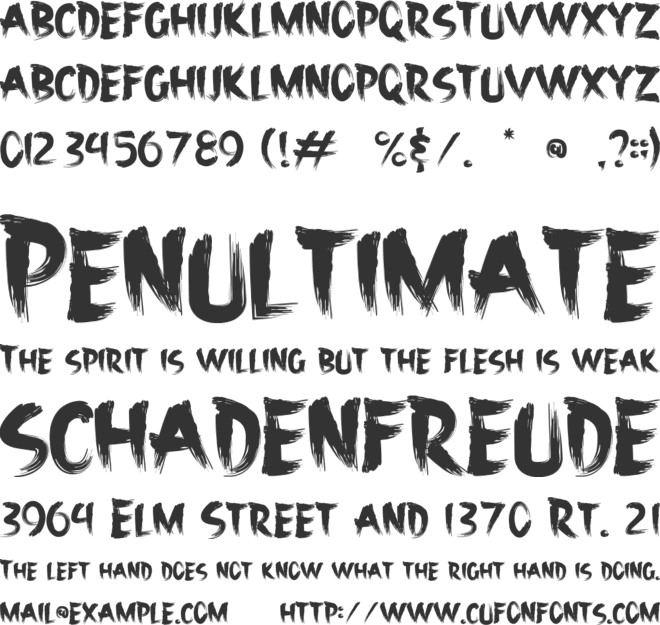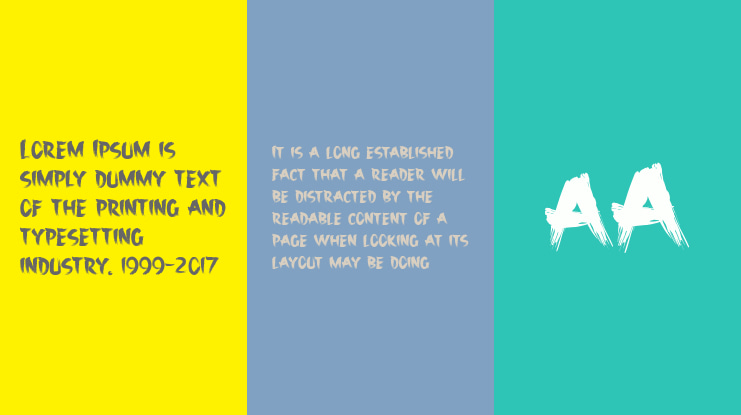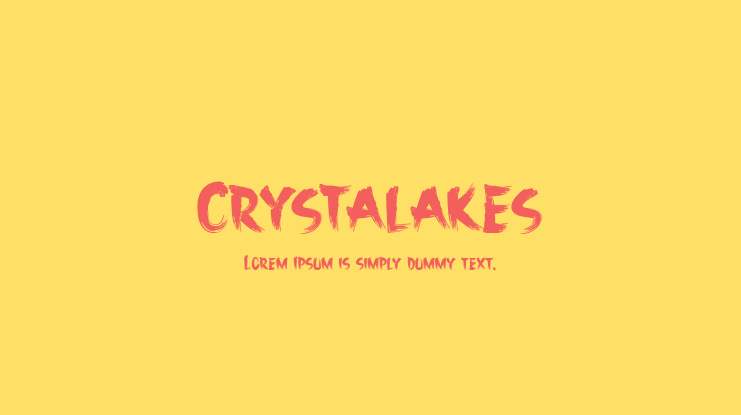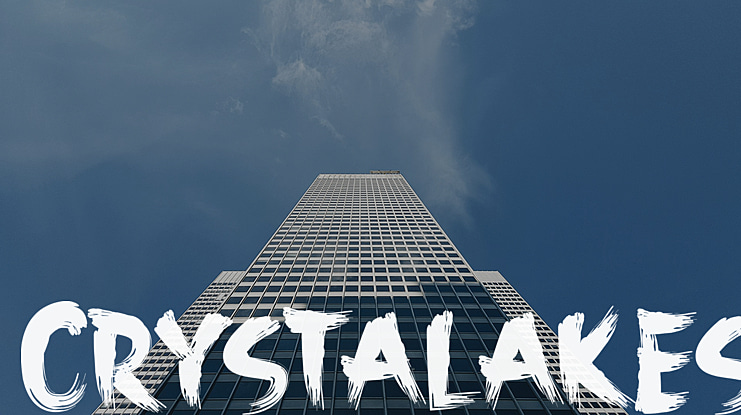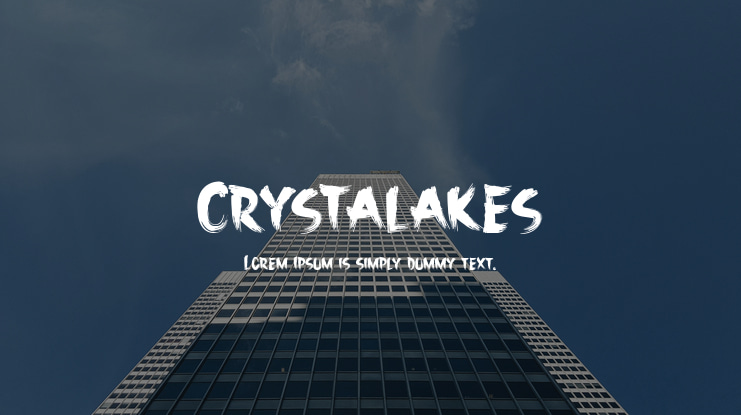
Crystalakes Font
Wantara Putra
Crystalakes is a horror brush font that inspired by Horror Vintage & Retro Poster Design in the 70s till 90s. and also have unique characteristic that make it useful for your design need such like Poster, Music Album Cover, and Many more. it will make your design more awesome!